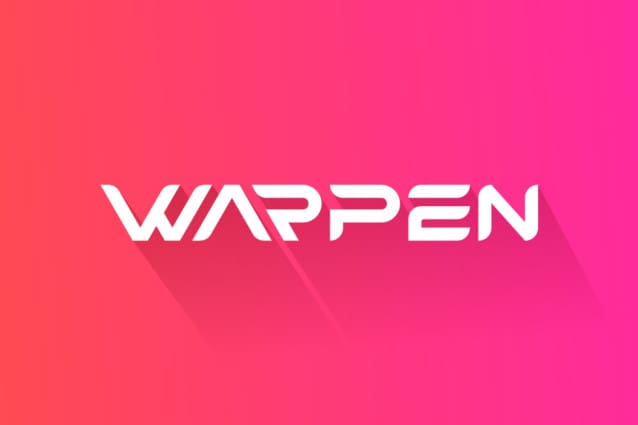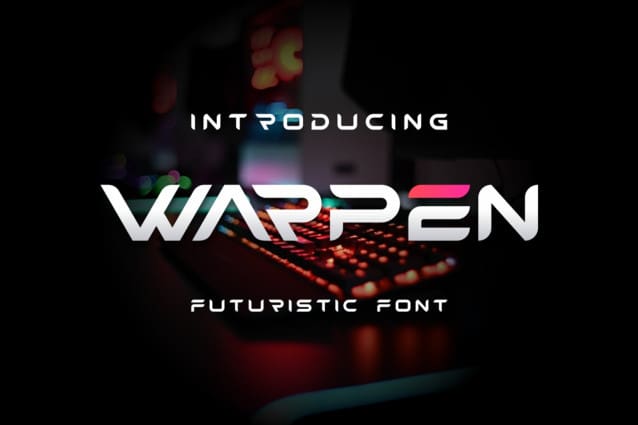
Warpen Futuristic Font
Warpen Futuristic Font – Modern Font is a bold and authentic display font. The font is suitable for any branding project like logo, t-shirt printing, esport, and many more. outstanding in a wide range of contexts.